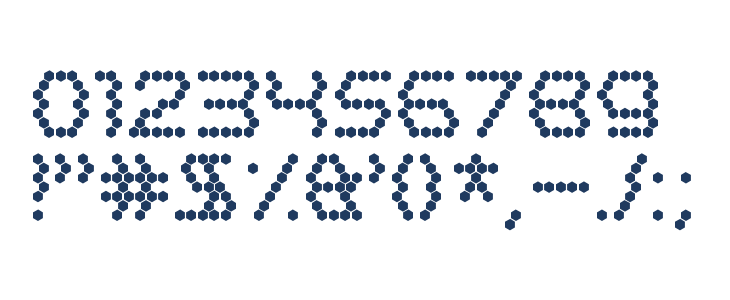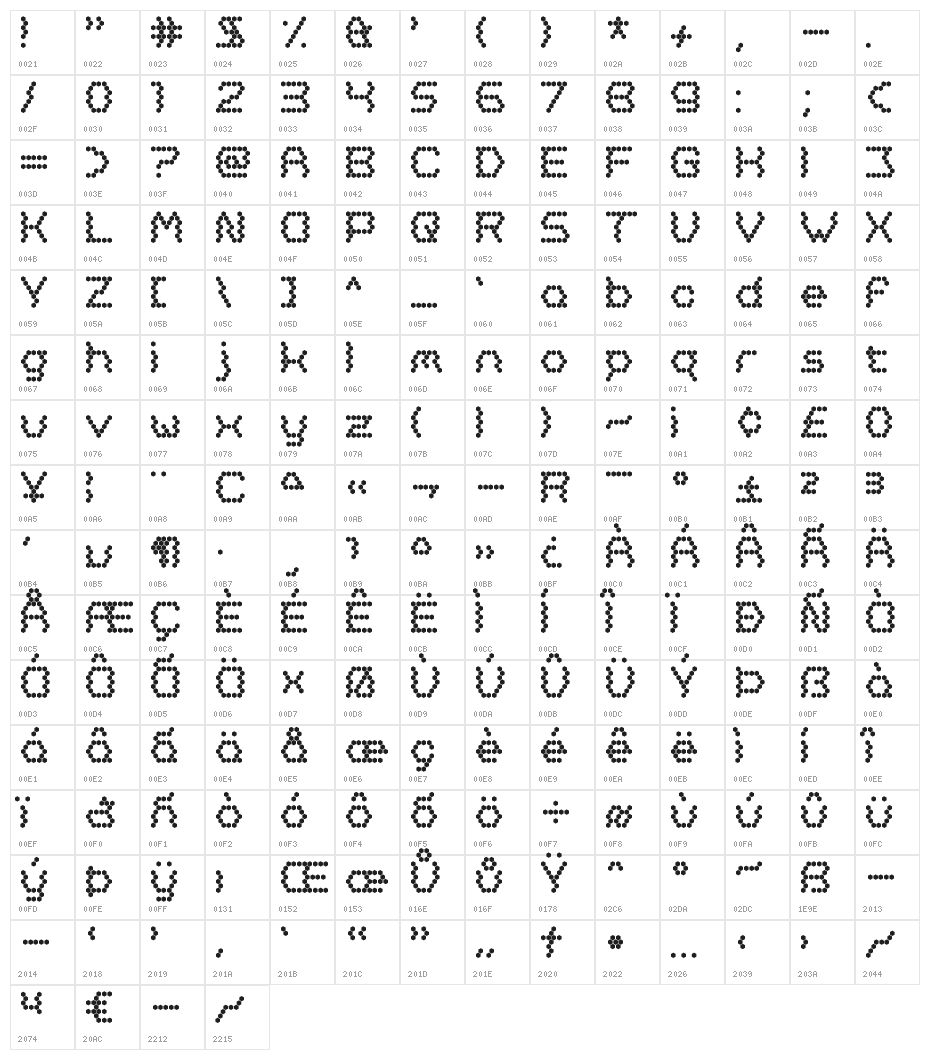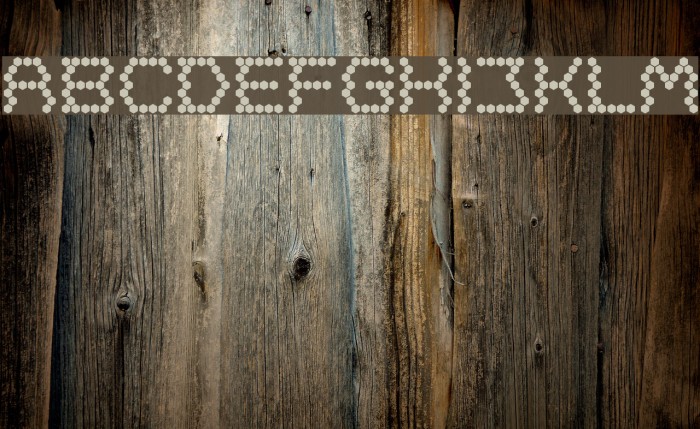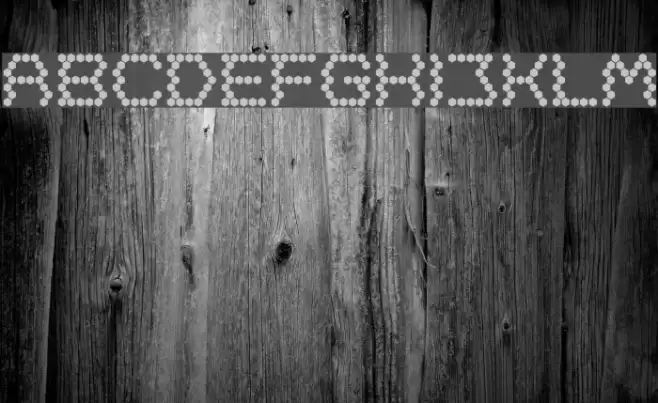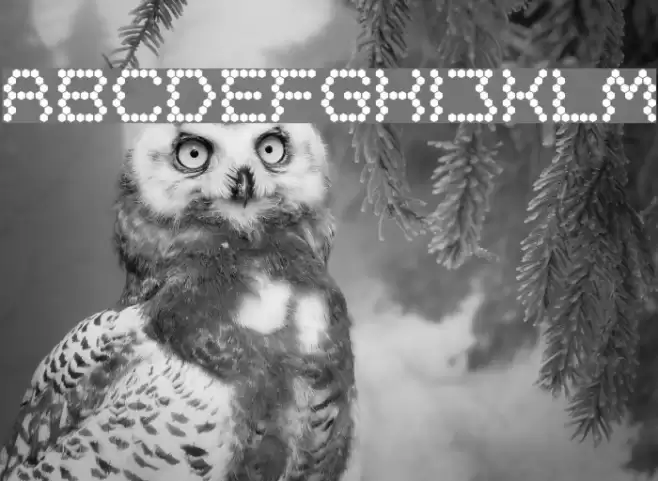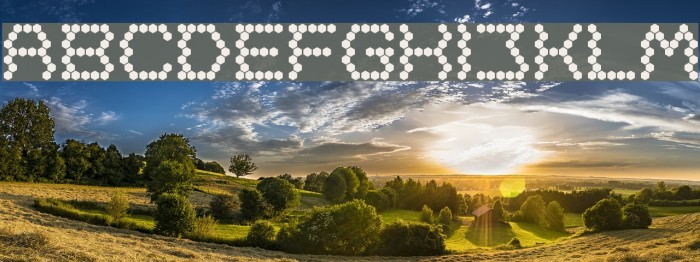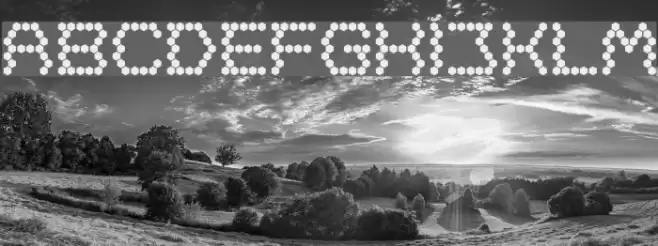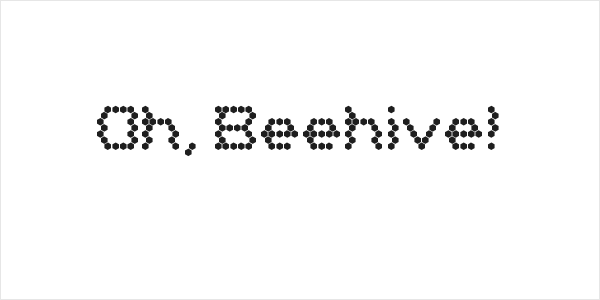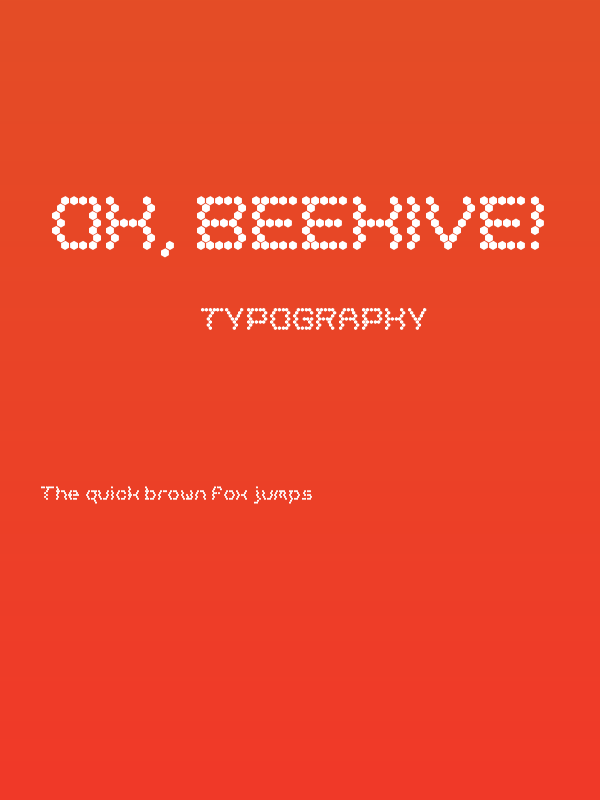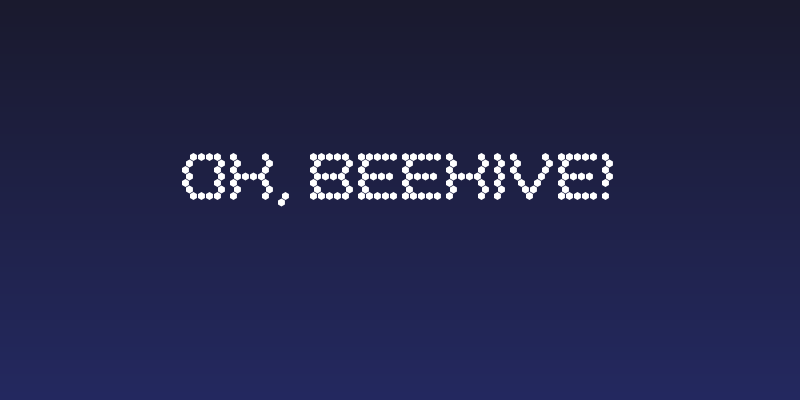
Oh, Beehive! Font
Oh, Beehive! Description
This font features a unique and playful design composed entirely of small, evenly spaced dots that form each character. The rounded, dotted style gives it a whimsical and modern appearance, making it stand out in any design. The uppercase and lowercase letters maintain a consistent structure, with each dot contributing to the overall shape of the characters. Numbers and special characters are also crafted with the same dotted technique, ensuring uniformity across the entire typeface. The font's distinct style is ideal for projects that require a fun and eye-catching aesthetic, such as children's books, playful branding, or creative event posters.
| Proposed Projects | Ideal for children's books, playful branding, event posters, and creative invitations. |